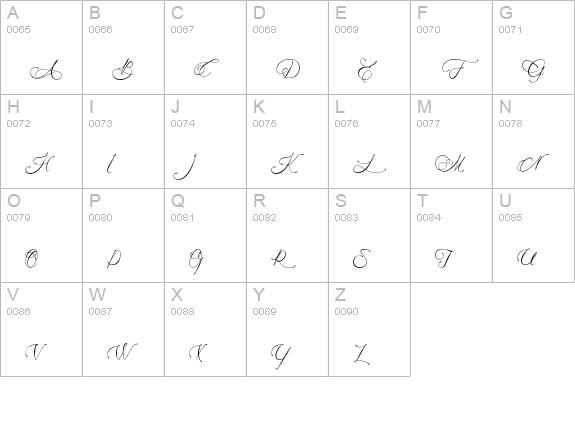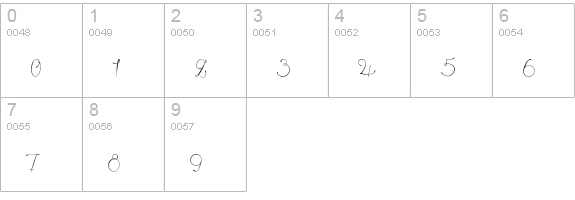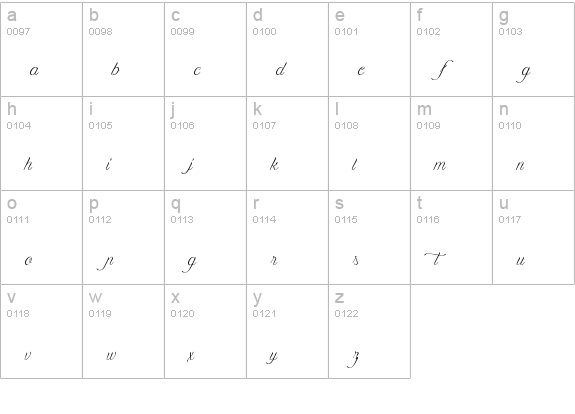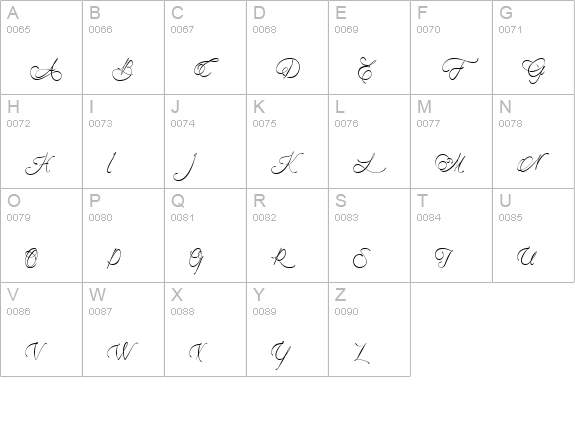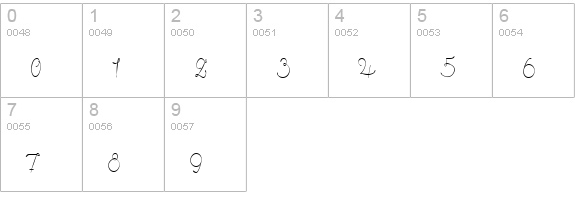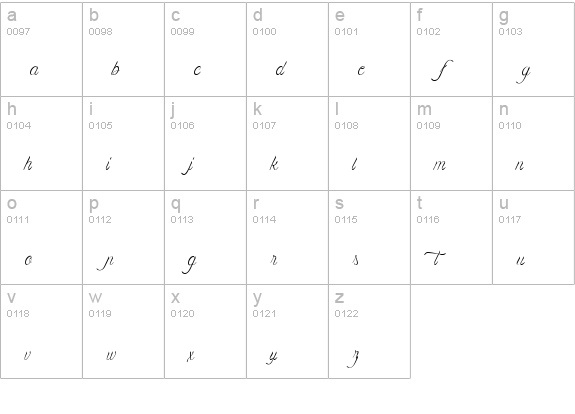
Mademoiselle Camille L Font Details
Mademoiselle Camille L font is a stunningly elegant and sophisticated typeface that will add a touch of class to any design project. With its delicate curves and graceful lines, this font exudes a sense of femininity and refinement. Whether used for branding, invitations, or editorial designs, Mademoiselle Camille L font captivates with its timeless beauty. It is the perfect choice for those seeking a font that effortlessly combines classic charm with a modern twist. But what truly sets Mademoiselle Camille L font apart is that it is completely free. Yes, you read that right! This exquisite font is freely available to download at FontsMarket.com, allowing designers and creatives to elevate their work without any cost. So why wait? Embrace the elegance of Mademoiselle Camille L font and transform your projects into works of art. Download it today from FontsMarket.com and unlock the beauty of this extraordinary typeface.